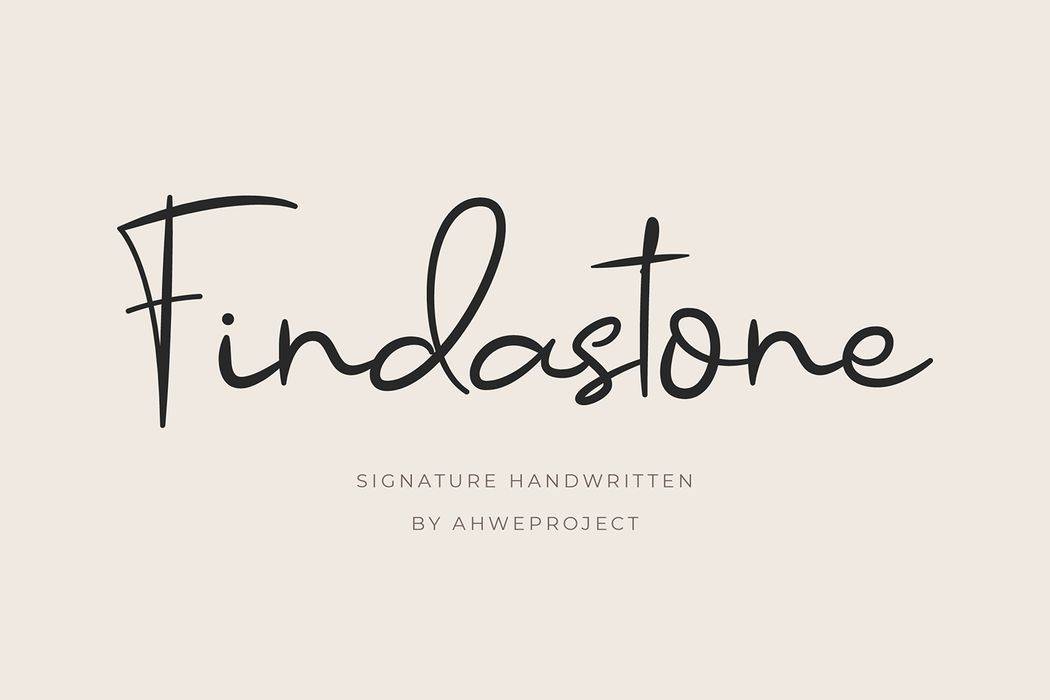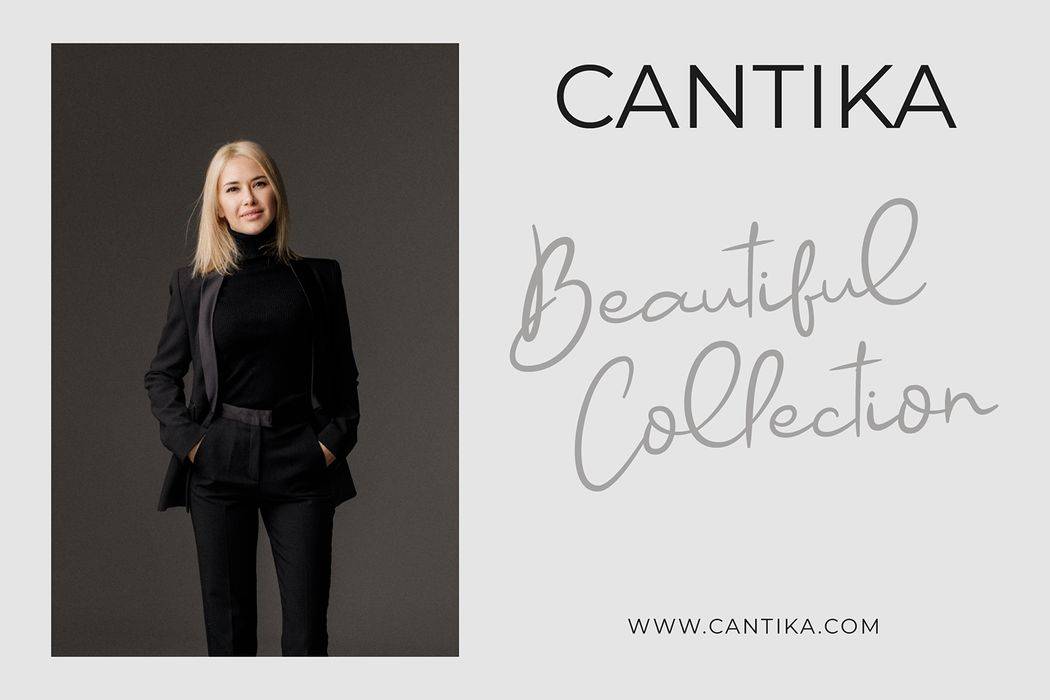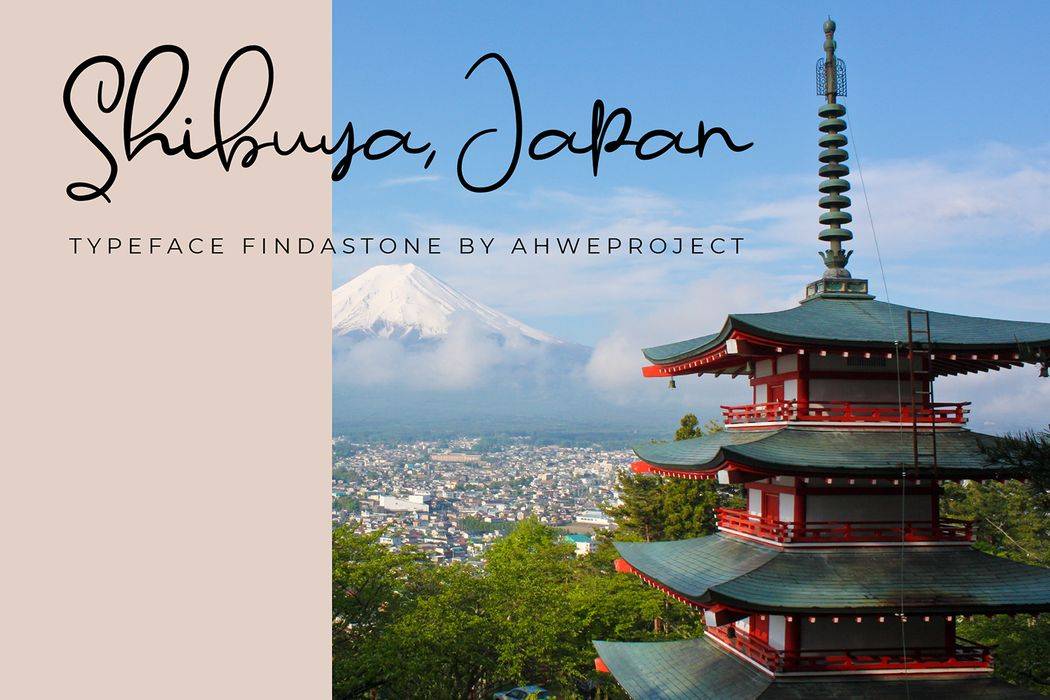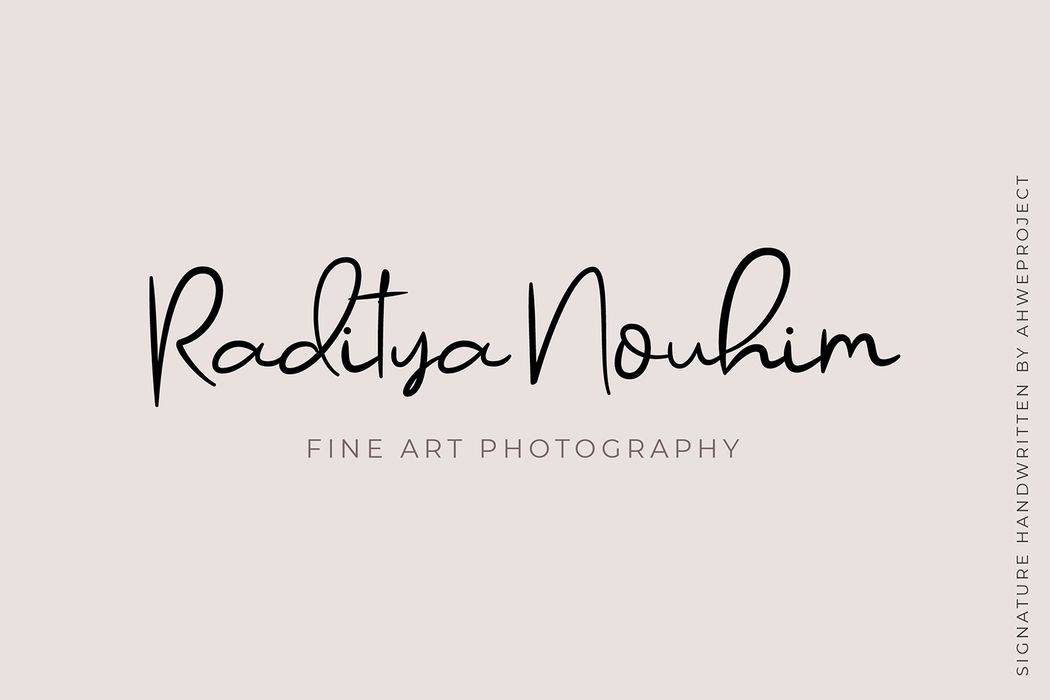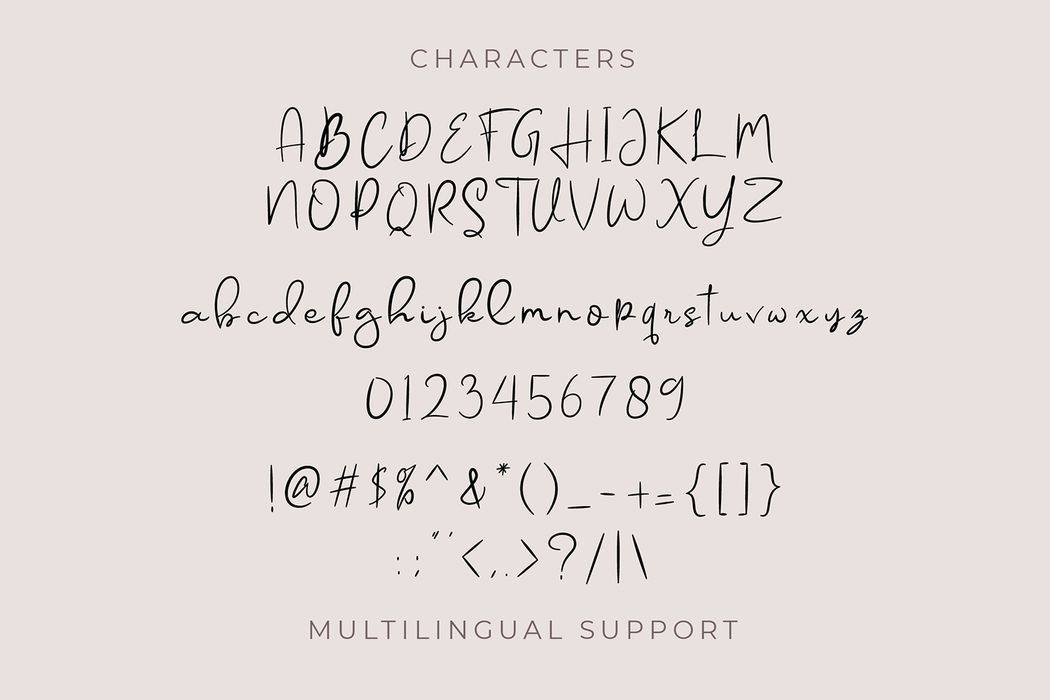
Findastone is a playful, handwritten sans serif font characterized by its tall, narrow letterforms and delicate strokes. With a casual and whimsical personality, it features a mix of single and double-story letters and maintains a light, airy feel that works well for creative and informal designs. This font is ideal for personal branding, invitations, and social media graphics where a friendly, approachable vibe is desired.
Findastone Font
About Findastone Font
| Font family | Findastone Font |
| Release date | 2021-11-18 |
| Designer | Dida Ahluddin |